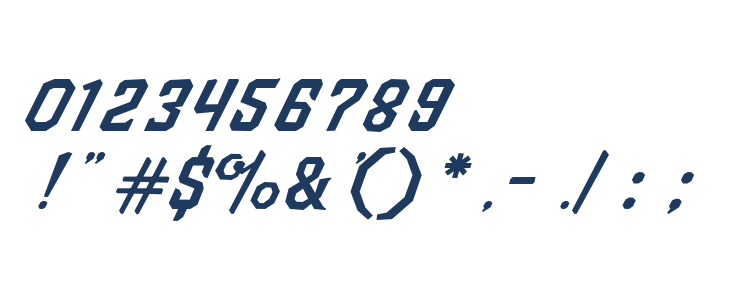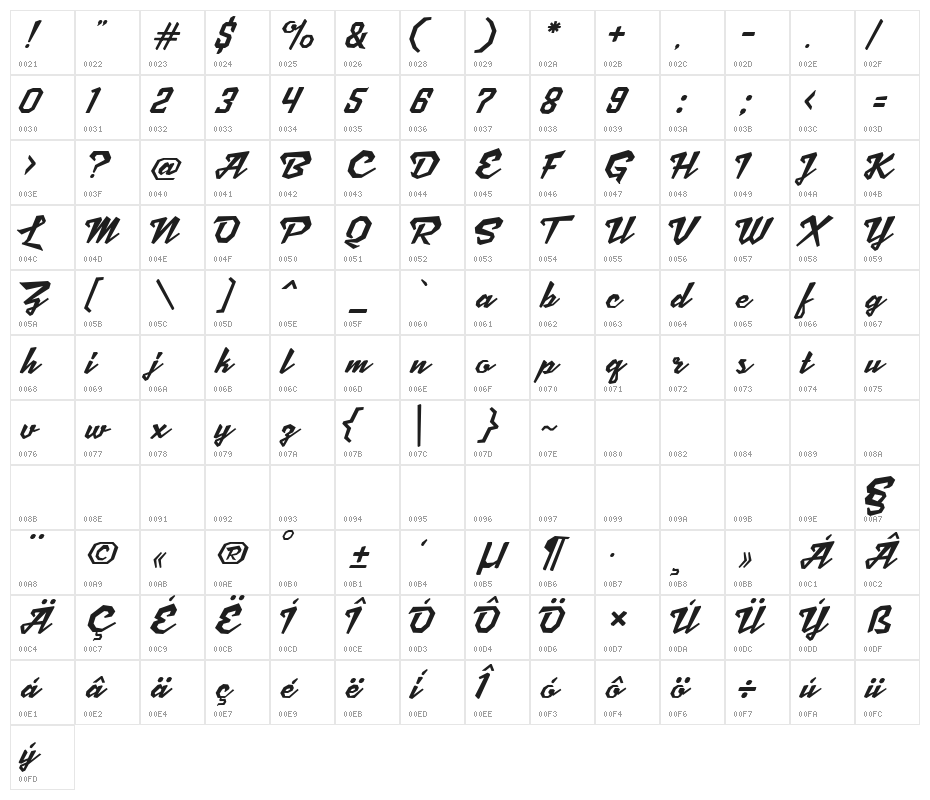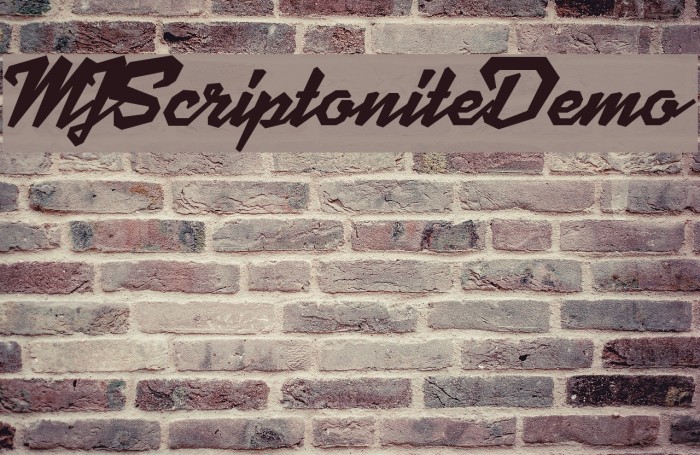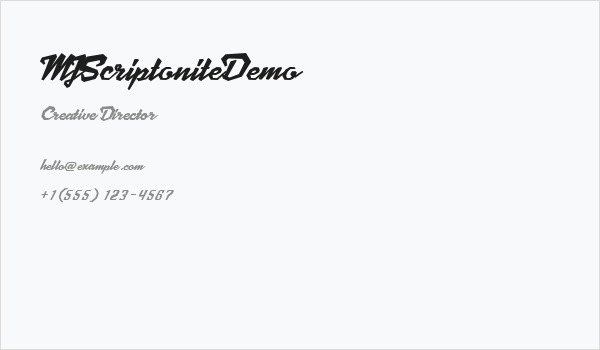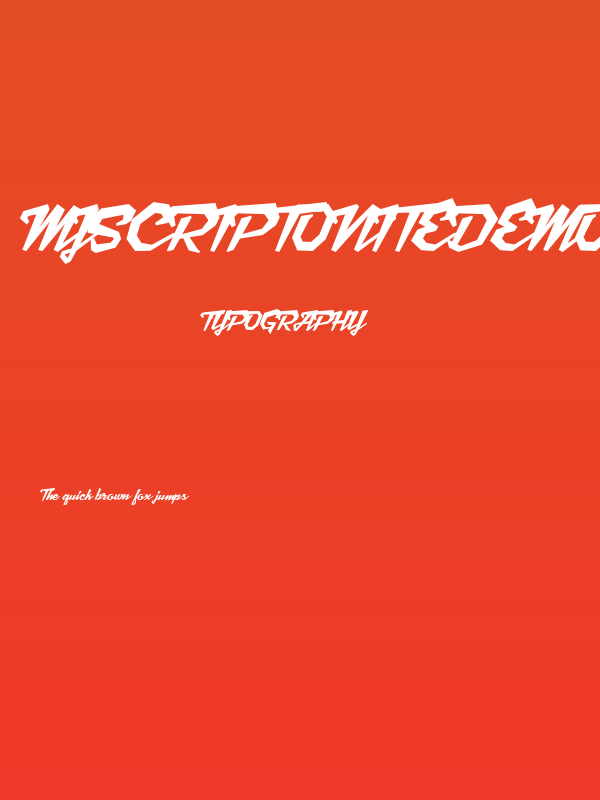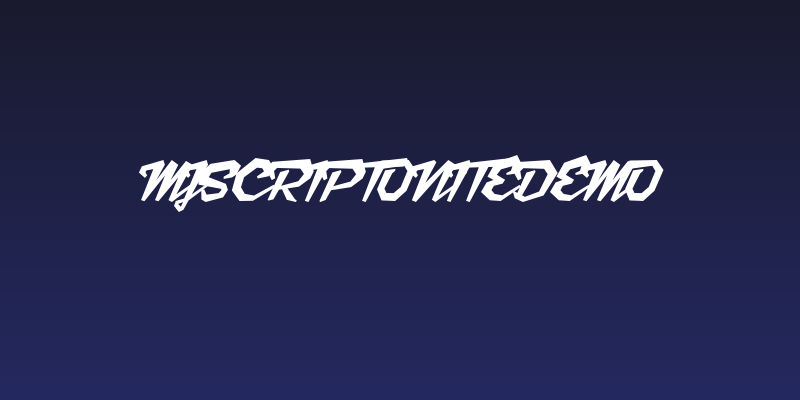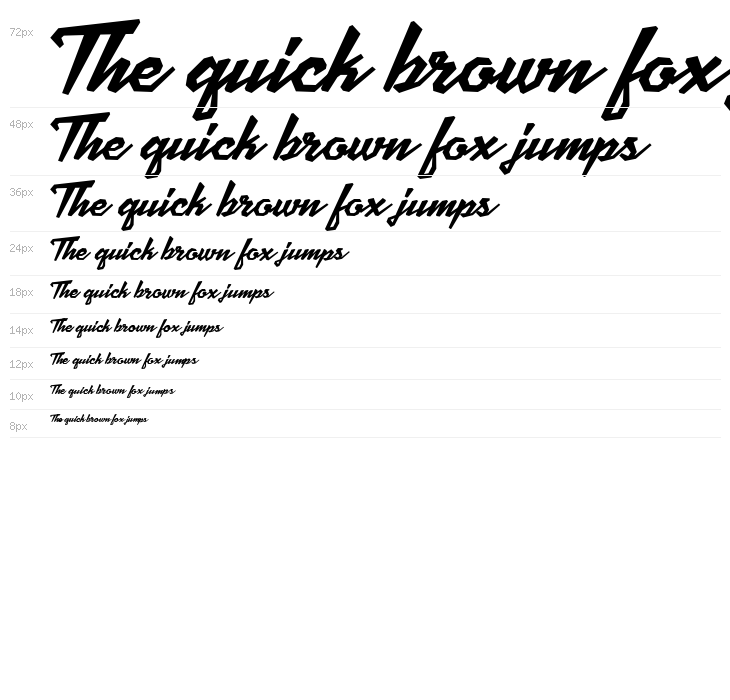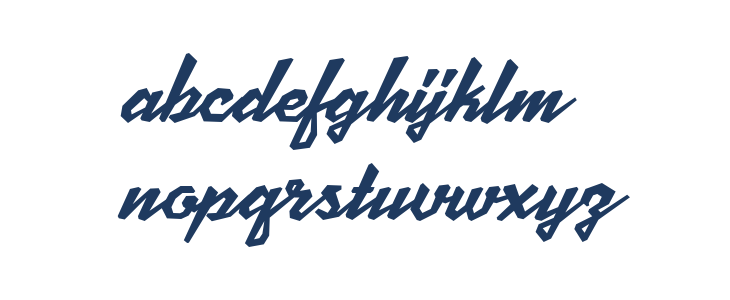
MJScriptoniteDemo Font
MJScriptoniteDemo Description
This font features a bold, angular script style that combines elements of both modern and vintage aesthetics. The uppercase letters are sharply defined with a dynamic slant, giving a sense of movement and energy. The lowercase letters maintain a consistent style, offering a cohesive look across the alphabet. Numbers and special characters are designed to match the overall bold and angular theme, ensuring uniformity. The font's unique style makes it stand out, suitable for projects that require a strong visual impact.
| Overall Style | Modern, Vintage |
| Proposed Projects | Ideal for branding, logos, posters, and any design that requires a strong, impactful font. |